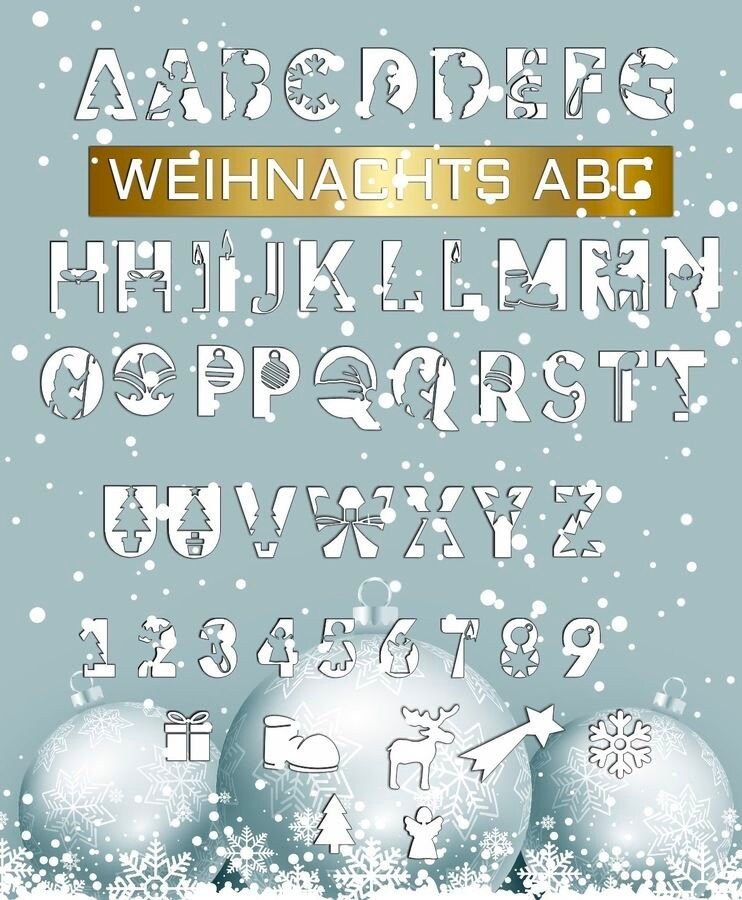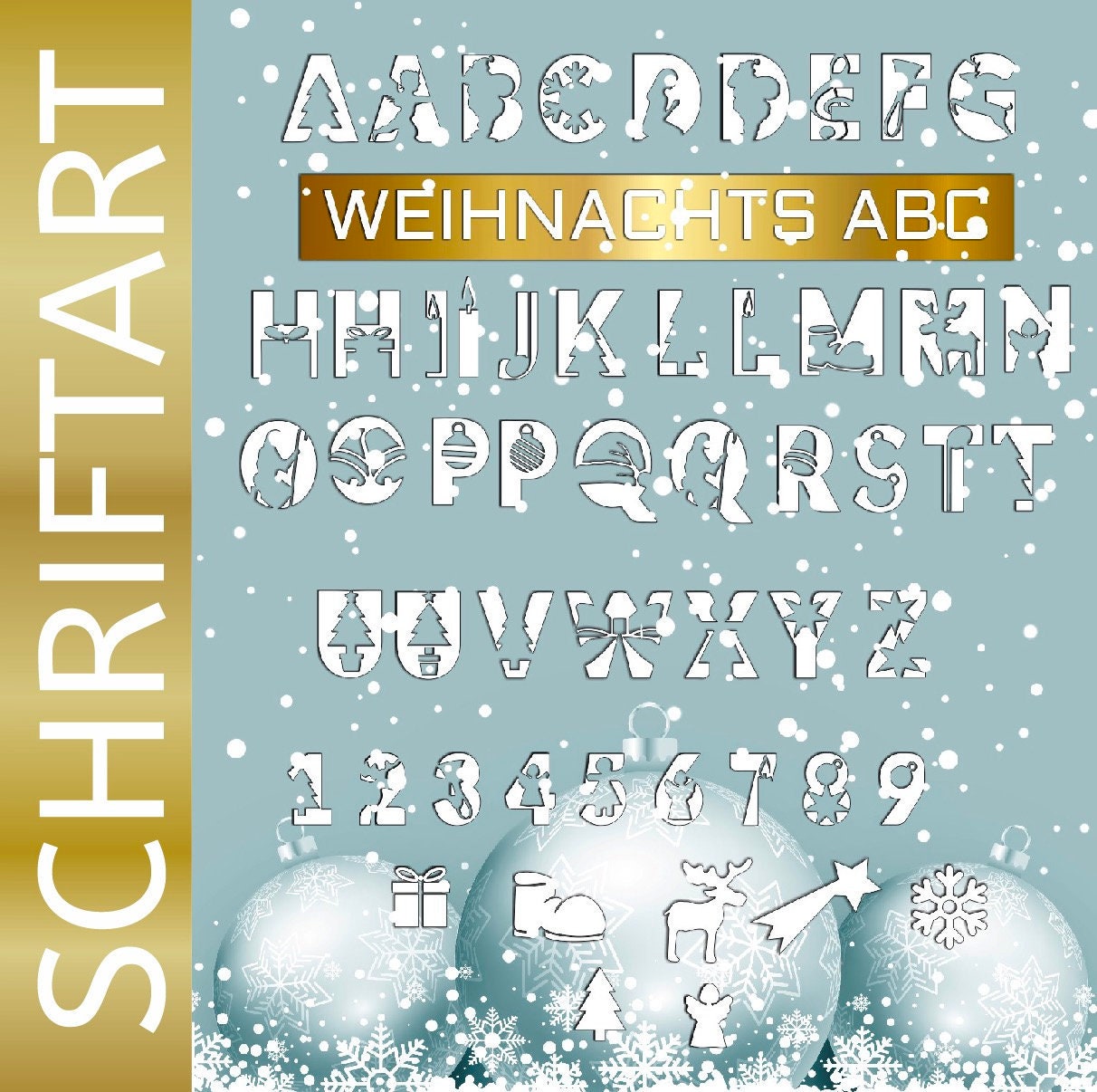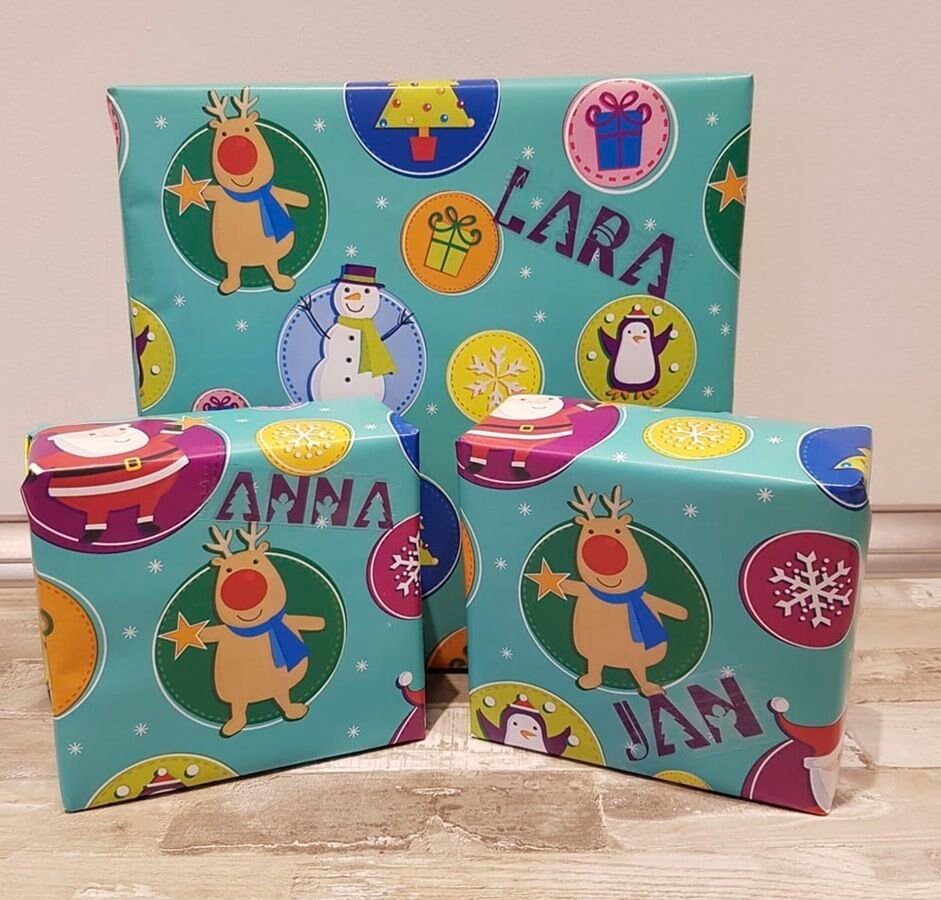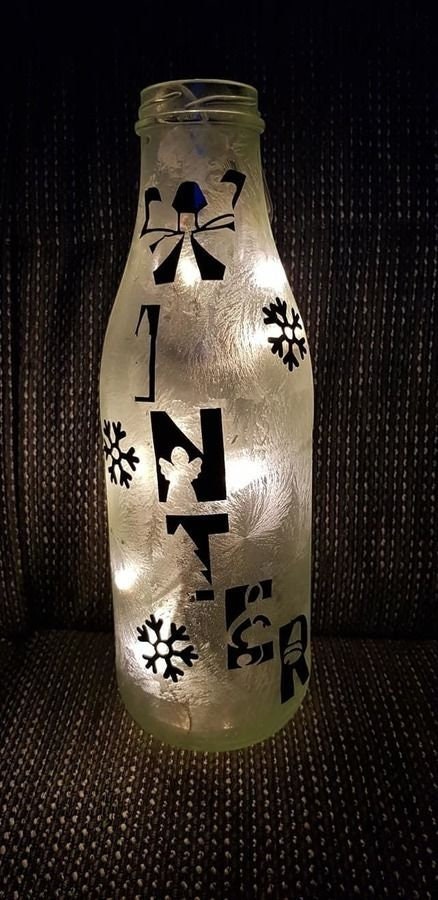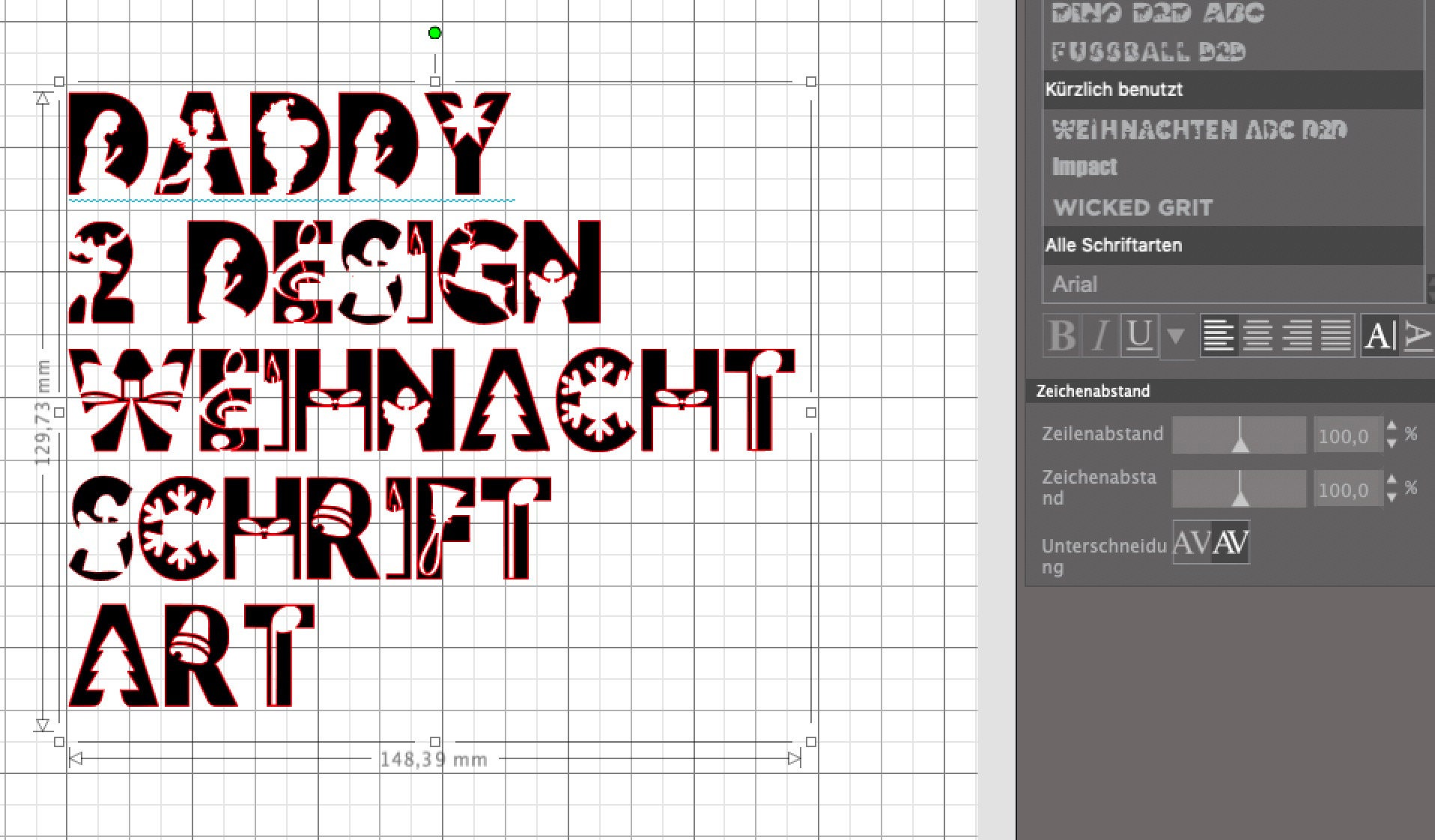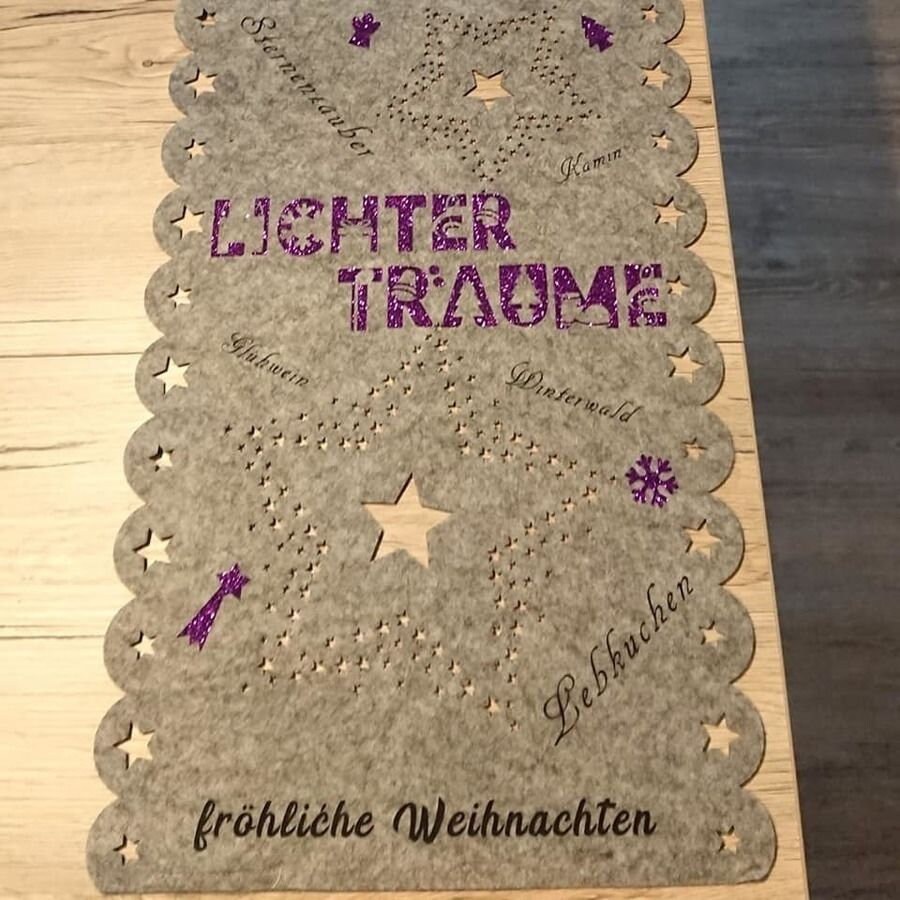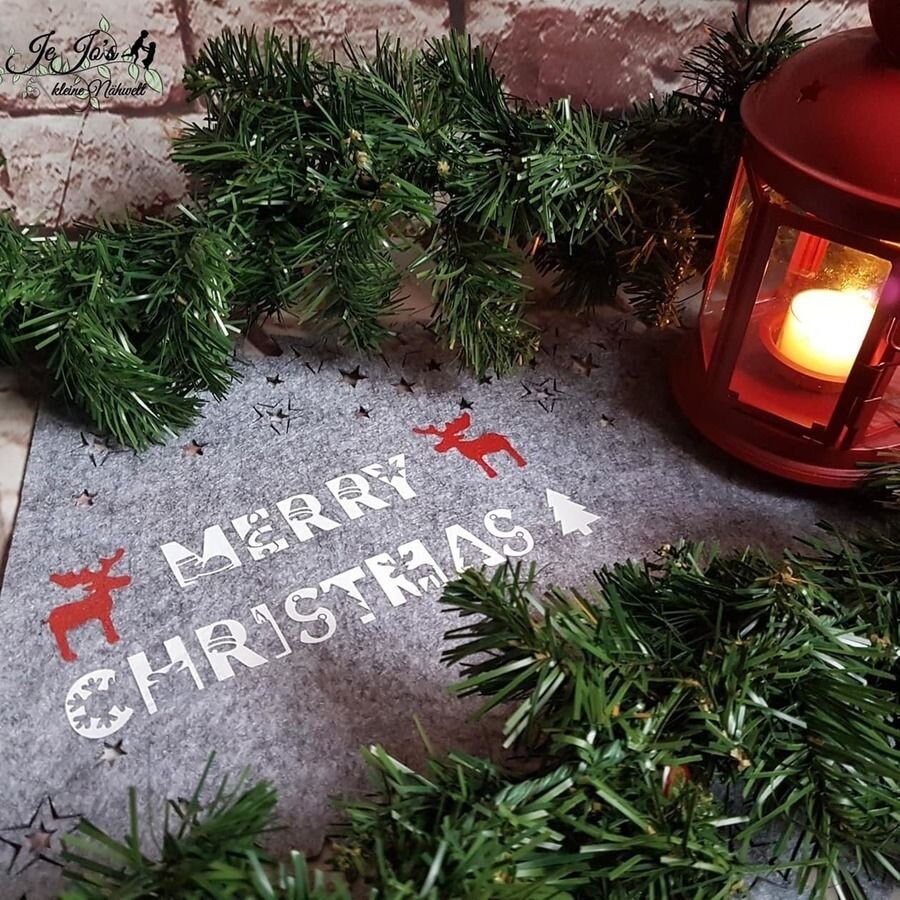
Here comes the
CHRISTMAS ABC COMPLETE SET FONT PLUS SVG AND DXF
with letters, numbers & decorations for gifts, cards, Christmas decorations
Now you can put together your own names, spice up sayings and customize the Christmas decorations.